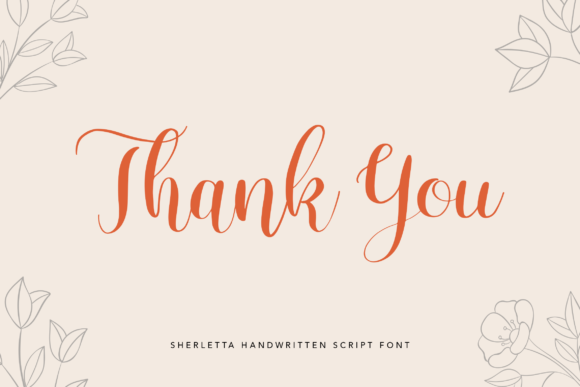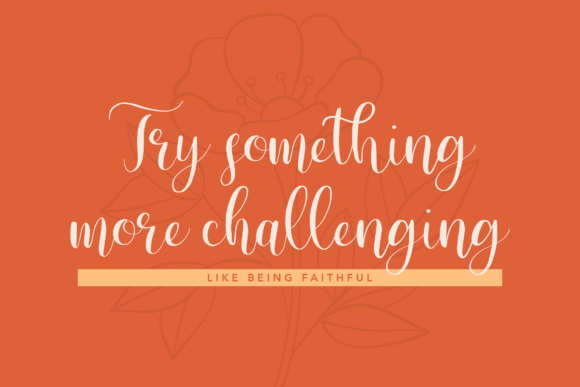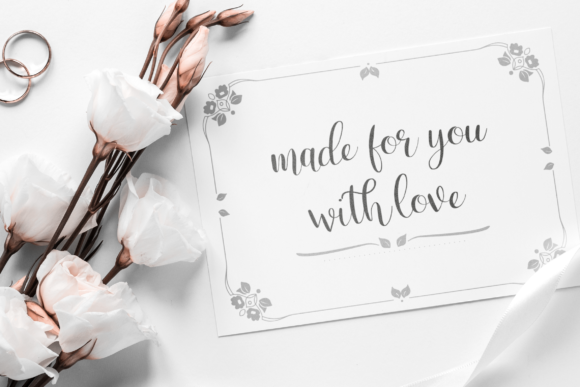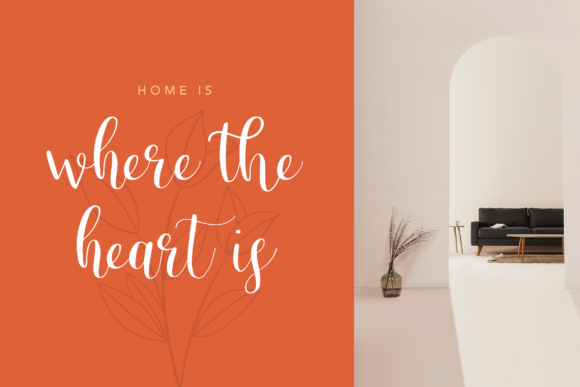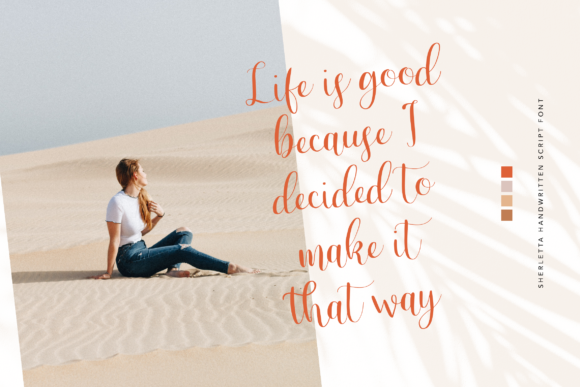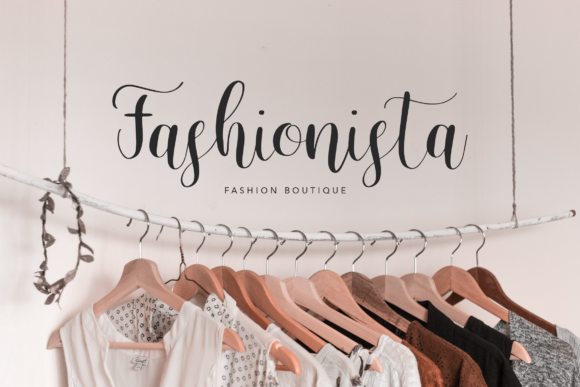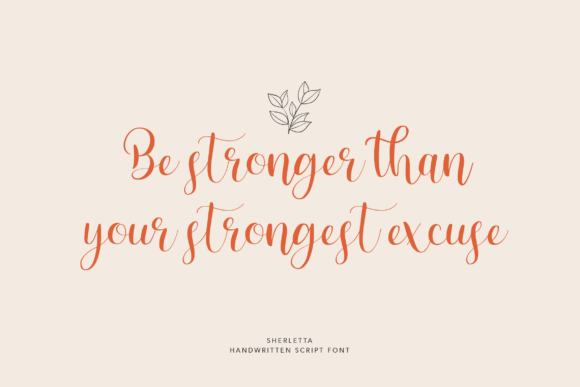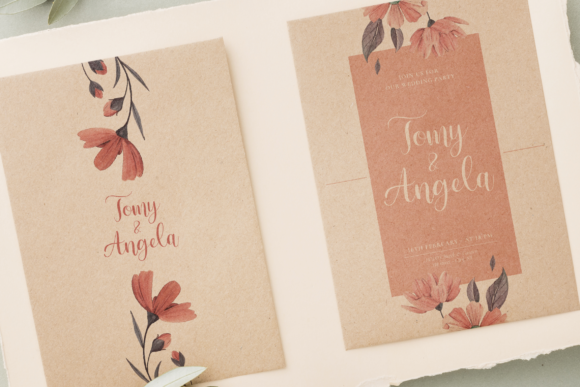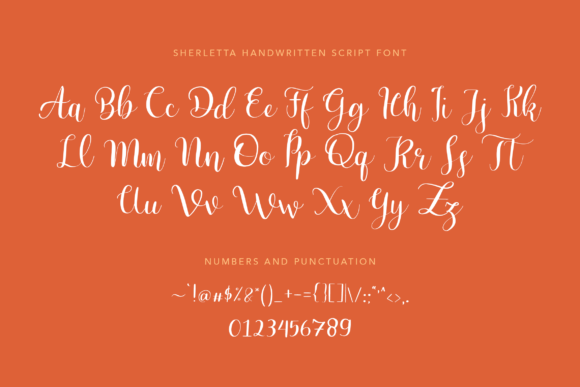
Sherletta Font
About Sherletta Font
Sherletta is an incredibly distinct, delicate and timeless handwritten font. It looks stunning on wedding invitations, thank you cards, quotes, greeting cards, logos, business cards and every other design which needs a handwritten touch.